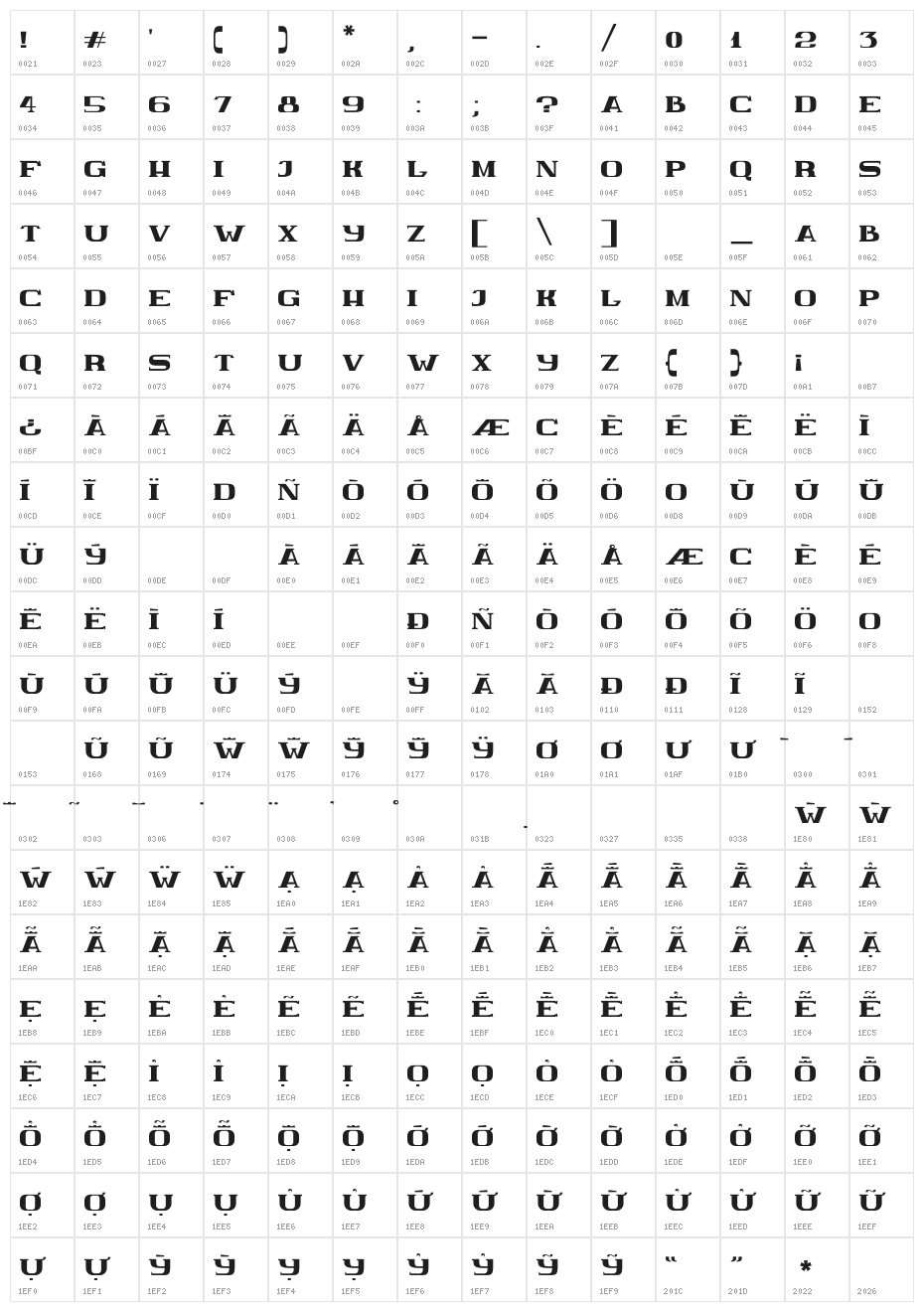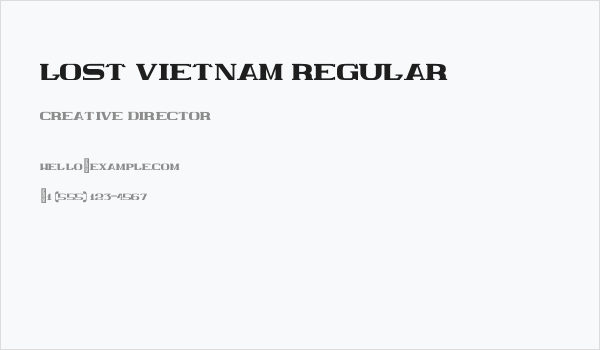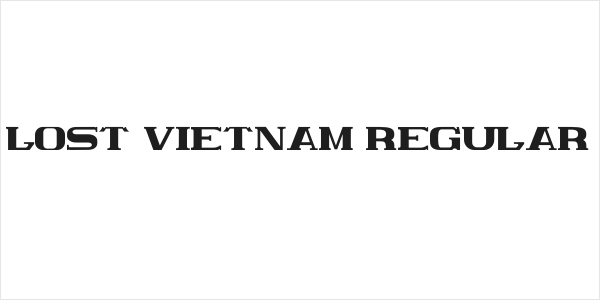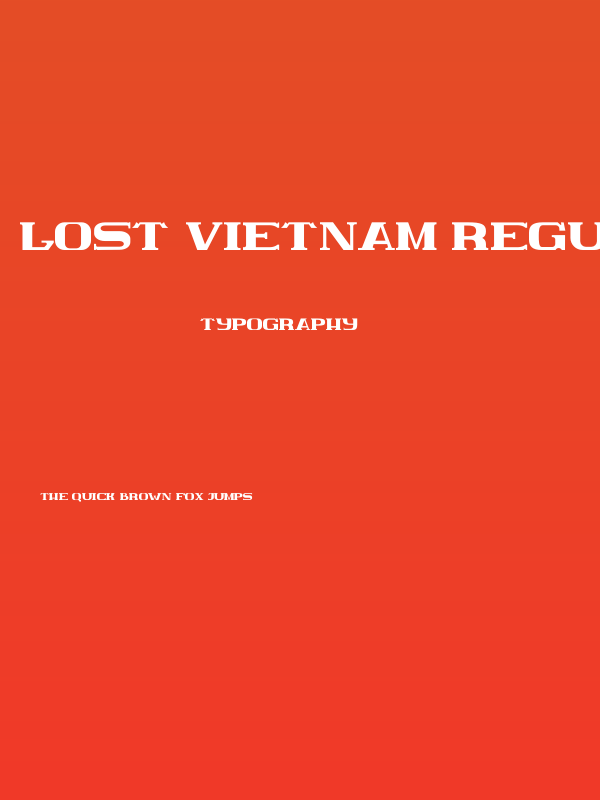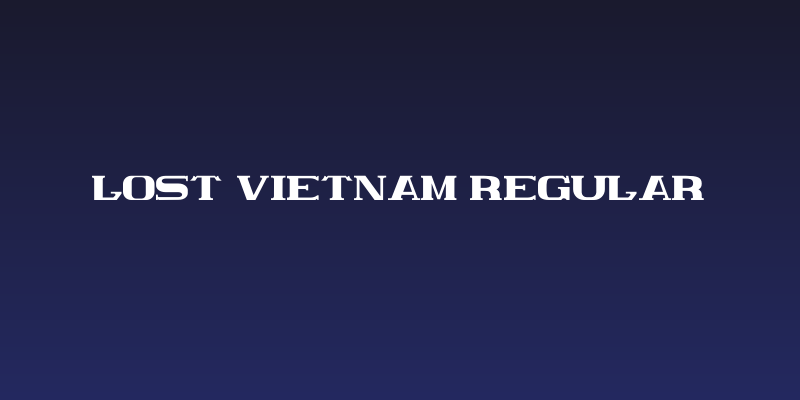
Lost Vietnam Regular Font
Lost Vietnam Regular Description
This font presents a bold and striking appearance, characterized by its sharp, angular edges and a distinct stencil-like design. The uppercase letters exhibit a strong presence with their thick strokes and unique cut-out sections, giving them a military or industrial feel. The numerals follow a similar style, maintaining consistency across the character set. The font's design is both modern and edgy, making it suitable for projects that require a bold statement. Its geometric forms and high contrast between thick and thin strokes enhance its readability while adding a touch of sophistication.
Proposed ProjectsIdeal for branding, posters, military-themed designs, and industrial projects.